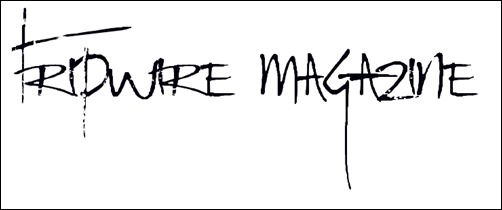
Nowadays calligraphy fonts are often used to create an elegant and romantic touch in graphic designs such as wedding invitations, religious art, logo design, memorial documents and more. These fonts work excellent on old paper textures as you can see in the intro image. A bit of noise filter as well will make the text look old and worn out. They are also used in calligraphic art for expressing grace, beauty and elegance.
Calligraphy is taken from the Greek words kallos “beauty” and graph? “writing,” which translates to “beautiful handwriting.” Calligraphic fonts have a history and development that span thousands of years, and in our modern age, the appreciation for them has grown extremely.
Because of the variety of calligraphy fonts and digital typefaces that are now available for designers, it is easy to attain a calligraphic aspect in your digital work. To give you an idea of the range of resources that are on hand, I showcase this list of 20 beautiful calligraphy fonts, which you can download for free.
Mirella Script – MORE INFO
ChopinScript – MORE INFO
CAC Champagne – MORE INFO
Arizonia – MORE INFO
Old Script – MORE INFO
Billy Argel Font – MORE INFO
One Fell Swoop – MORE INFO
Renaissance Regular – MORE INFO
Gourdie Handwriting – MORE INFO
Freebooter Script – MORE INFO
Coneria Script Demo – MORE INFO
Calligra Phillip Font – MORE INFO
Blessed Day – MORE INFO
Feathergraphy Decoration – MORE INFO
Antatomy Font – MORE INFO
RatInfestedMailbox – MORE INFO
American UncD Fonts – MORE INFO
Jellyka Delicious Cake Font – MORE INFO
Indenture English Penman – MORE INFO
Windsong – MORE INFO
Amazing collection Naz and my favorite one is Arizonia font style.
Thanks for sharing the fonts, I really like the Indenture English Penman font, modern but classic. A lot of other good ones as well. Cheers.